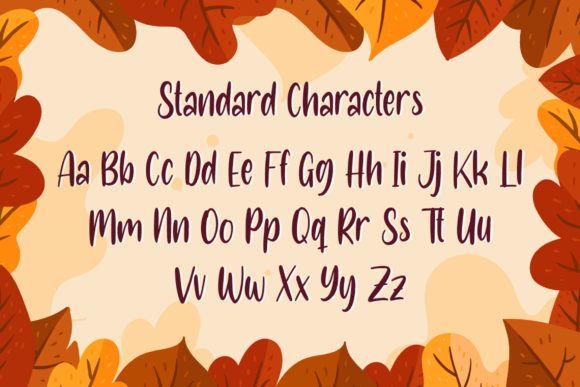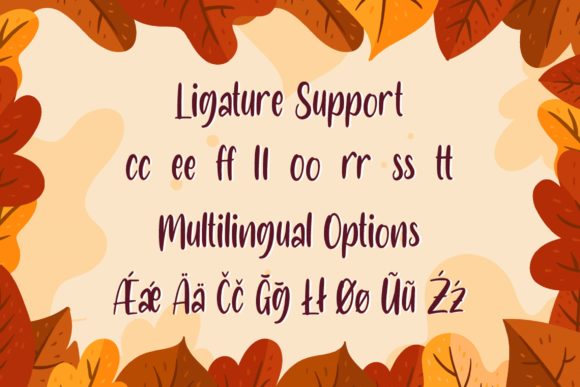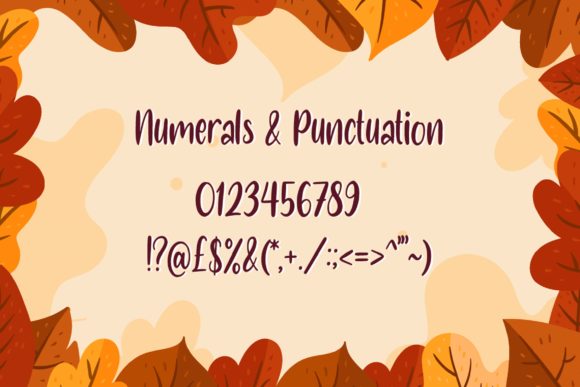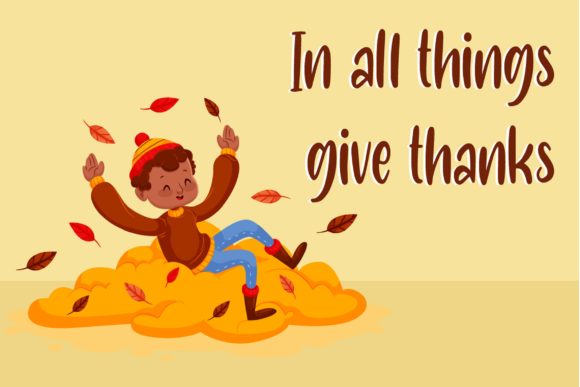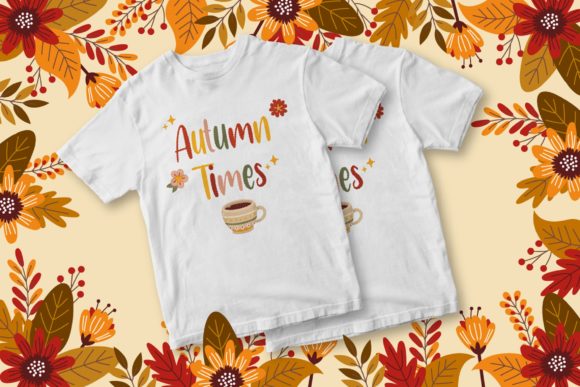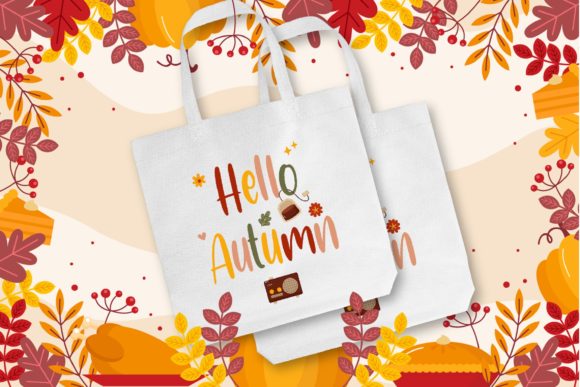
The Blessed Fall Font: A Friendly Handwritten Delight for Creatives
I’ll never forget the time I was working on a project for a client’s autumn-themed social media campaign. I had all the graphics and images ready, but I was stuck on finding the perfect font to match the cozy, fall vibe. That’s when I stumbled upon the Blessed Fall font, and it instantly became the missing piece to my design puzzle. In this article, I’ll share my experience with this lovely font, its features, and how to make the most of it in your creative projects.
A Personal Review: What I Love About Blessed Fall
The Blessed Fall font has quickly become a favorite in my design toolkit, and here’s why:
- ✨ Playful and adaptable: This font effortlessly switches between playful and elegant, making it perfect for various design projects.
- ✅ Easy to read: Despite its handwritten nature, Blessed Fall is remarkably legible, even at smaller font sizes.
- 🌈 Versatile color options: It pairs well with a wide range of colors, from bright and bold to soft and pastel.
While Blessed Fall is an excellent font, there are a few minor things to keep in mind:
- 🤔 Limited formal use: Due to its playful nature, Blessed Fall might not be the best fit for very formal or professional projects.
- ⚠️ Requires attention to spacing: As with many handwritten fonts, you might need to adjust the spacing between letters for optimal readability.
- Experiment with OpenType features like ligatures and stylistic alternates to add personality to your text.
- Explore the glyphs panel to find unique characters and stylistic alternates.
The Backstory of Blessed Fall
Blessed Fall was created with the intention of capturing the warmth and coziness of the autumn season. The designer aimed to create a font that felt both approachable and elegant, suitable for a wide range of creative projects. While the exact details of the designer are not well-known, the impact of their work is clear in the hearts of users like me who find it indispensable.
| Font Name | Blessed Fall Font |
| Q: What makes Blessed Fall unique? | A: Its playful yet adaptable nature, making it suitable for various design projects from social media posts to greeting cards. |
| Q: Is Blessed Fall difficult to read? | A: No, despite being a handwritten font, Blessed Fall is designed to be easily readable. |
In conclusion, Blessed Fall is a versatile and charming font that can elevate your design projects with its friendly and approachable feel. Whether you’re a designer, crafter, or hobbyist, it’s definitely worth adding to your toolkit.